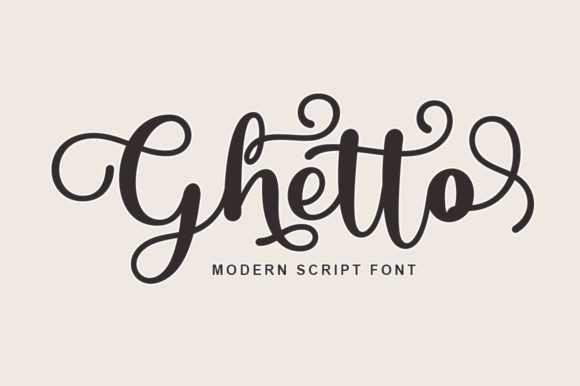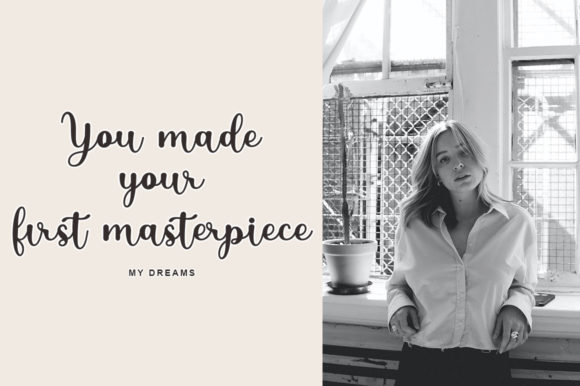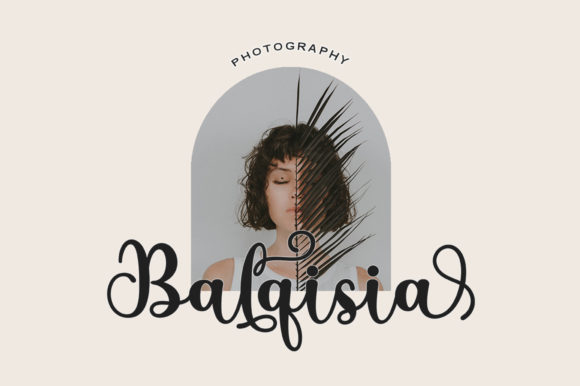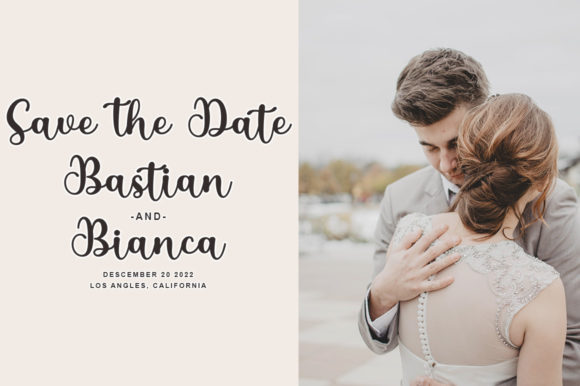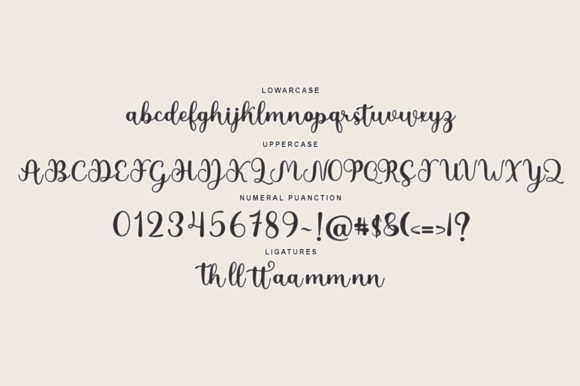
About Ghetto Font
Ghetto is a beautiful handwritten font, meticulously crafted to become a true favorite. Balancing a classy calligraphic influence with a contemporary and fresh feel, Ghetto stands out as a versatile and stylish choice for a variety of design projects. Its timeless elegance and modern appeal make it a font that can adapt to different contexts, ensuring it remains a favorite for creative endeavors.
The font’s handwritten charm brings a personal touch to your text, enhancing the overall aesthetic of your designs. The classy calligraphic influence adds a touch of sophistication, making Ghetto suitable for a range of applications, from branding and invitations to social media graphics and more.
Whether you’re working on projects that demand a classic and refined look or those that require a contemporary and fresh feel, Ghetto fits the bill. Its ability to seamlessly blend timeless elements with a modern touch makes it a go-to choice for those who appreciate the fusion of traditional and current design aesthetics.
In summary, Ghetto is more than just a font; it’s a beautifully crafted typeface that combines classic calligraphic influences with a contemporary and fresh vibe. Make it your favorite and watch it effortlessly elevate the visual appeal of your designs with its timeless elegance and modern charm.